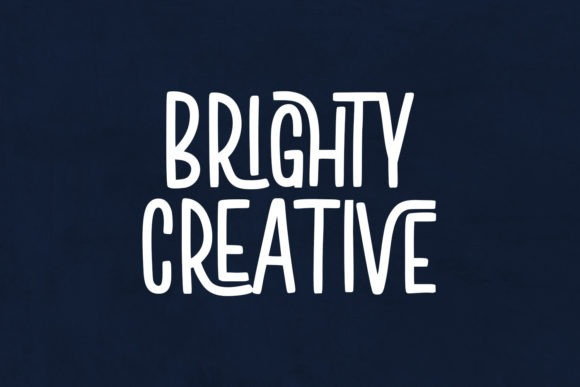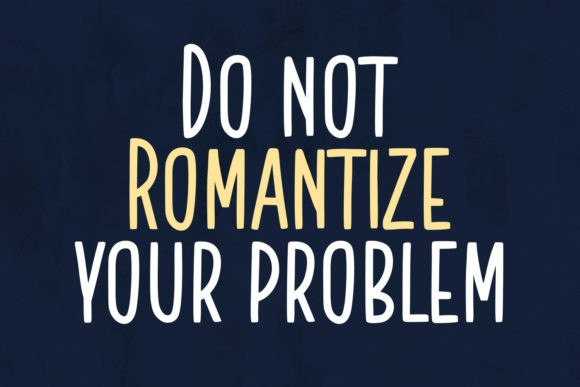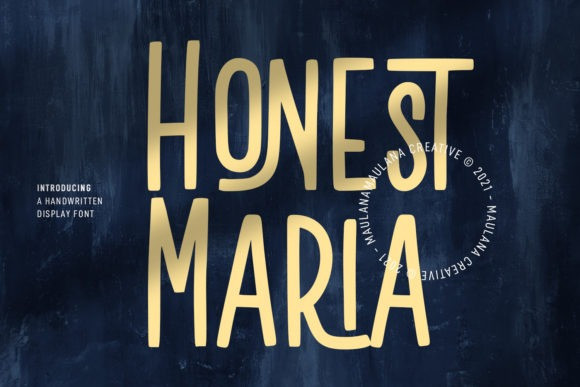
Honest Maria Font
Honest Maria Display Font is a minimal and neat sans serif font. It can easily be matched to an incredibly large set of projects, so add it to your creative ideas and notice how it makes them stand out!